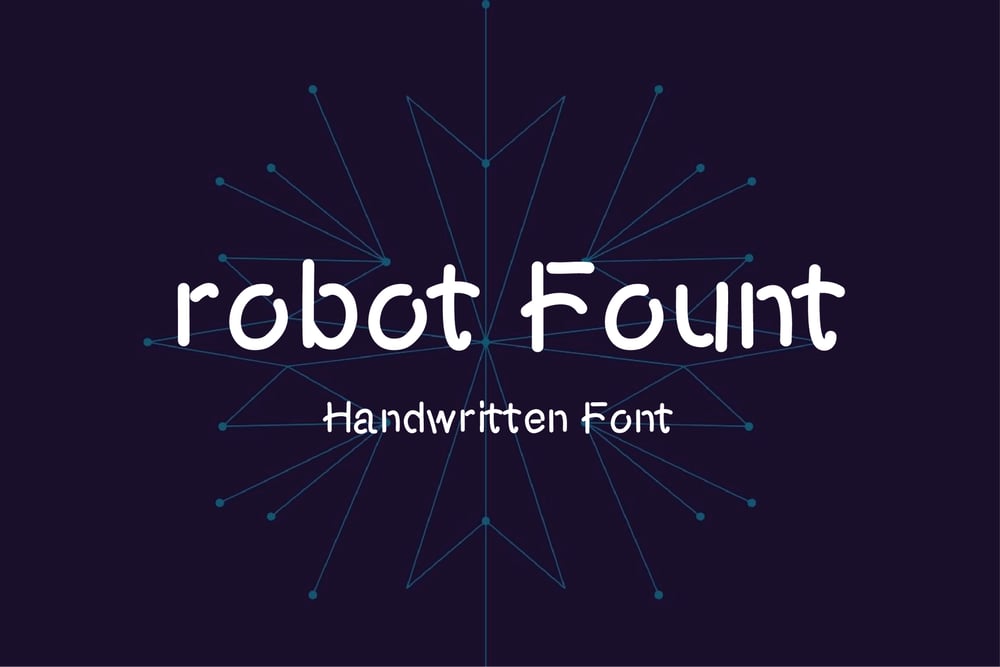
Robot cute
Robot cute font
Robot cute Font Family was designed by published by Numoofun Fount. Robot cute contains 2 styles and family package options. Robot Font – Handwritten Font is a bold and expressive typeface that captures the charm of hand-drawn lettering. Its unique, imperfect strokes give it a dynamic and authentic feel, perfect for projects that need a touch of individuality. Designed with creativity in mind, this font combines playfulness with versatility, making it ideal for branding, logos, posters, packaging, and more. The organic flow of Fobot Font adds a human element to designs, standing out in both digital and print media. Whether you’re crafting eye-catching headlines or personalizing your artwork, this font brings character and originality to every project.Features:- Supports fast response- Easy to use- Includes uppercase and lowercase letters- Contains numbers and punctuation- Perfect for: Logos, branding, wedding invitations, farmhouse decor, signs, crafting, mugs, shirts, pantry labels, stickers, business cards, greeting cards, posters, social media, planners, and websites.- A unique and aesthetically pleasing hand-drawn font